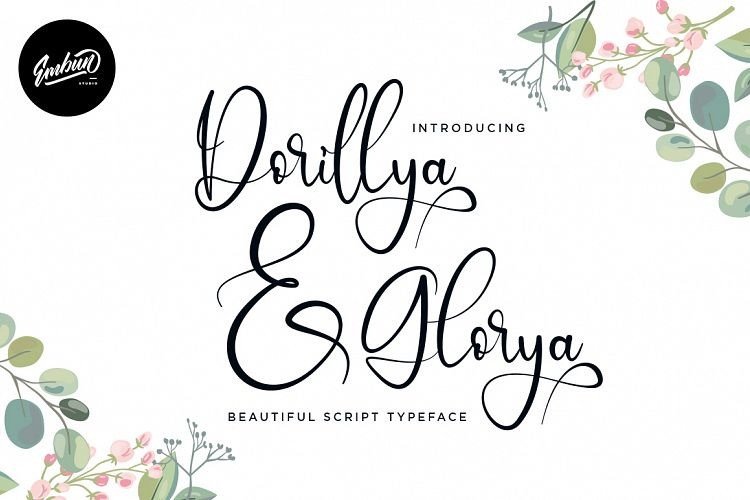
Dorillya & Glorya Script Font
Hi Designer! A beautiful handcrafted letters are transformed into font! Inspired by Retro style and combination with Hand Lettering style. Introducing Dorillya & Glorya Font! It’s a modern script calligraphy font with beautiful alternate and ligature. Suitable for your project such as Wedding Invitation, Business Card, Logo Brand, Greeting Card and many more